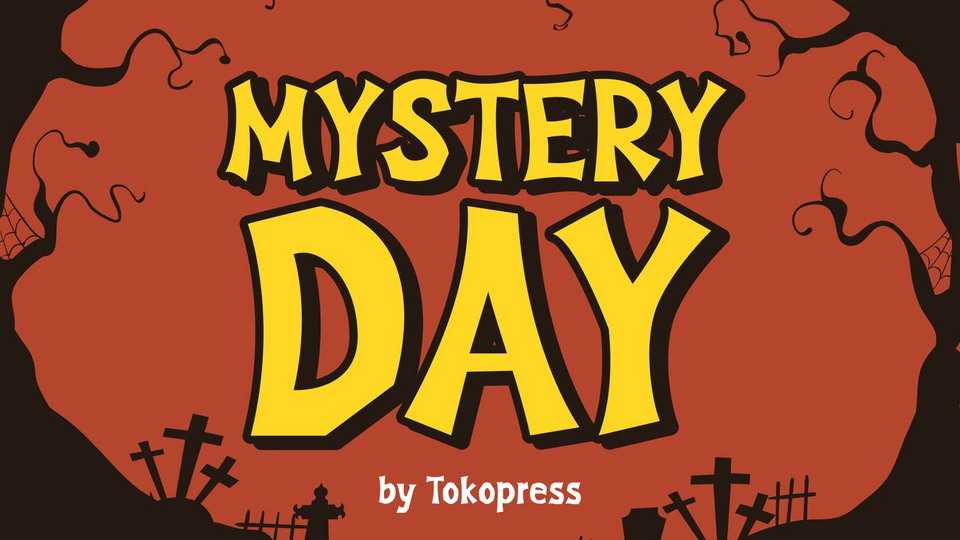
Download Mystery Day font, a scary Halloween typeface. What’s in common when an owl hooting, a creaking death branch tearing the night, and an awful smell of boiling poison from a dark kettle? It speaks MYSTERY!